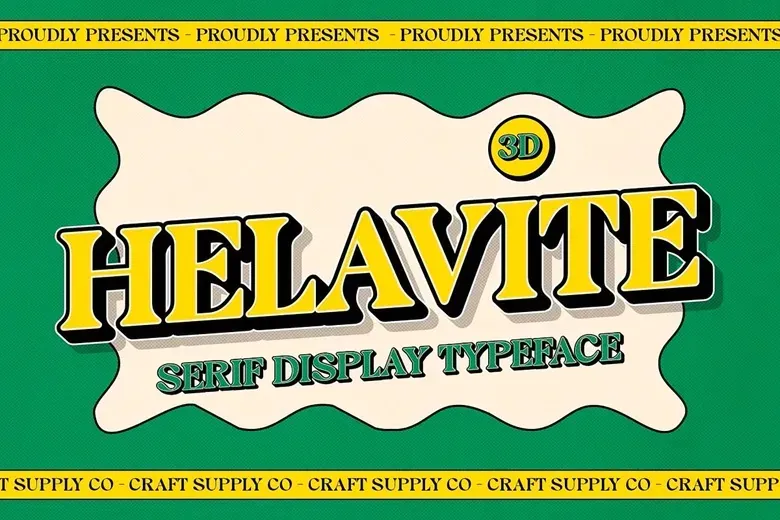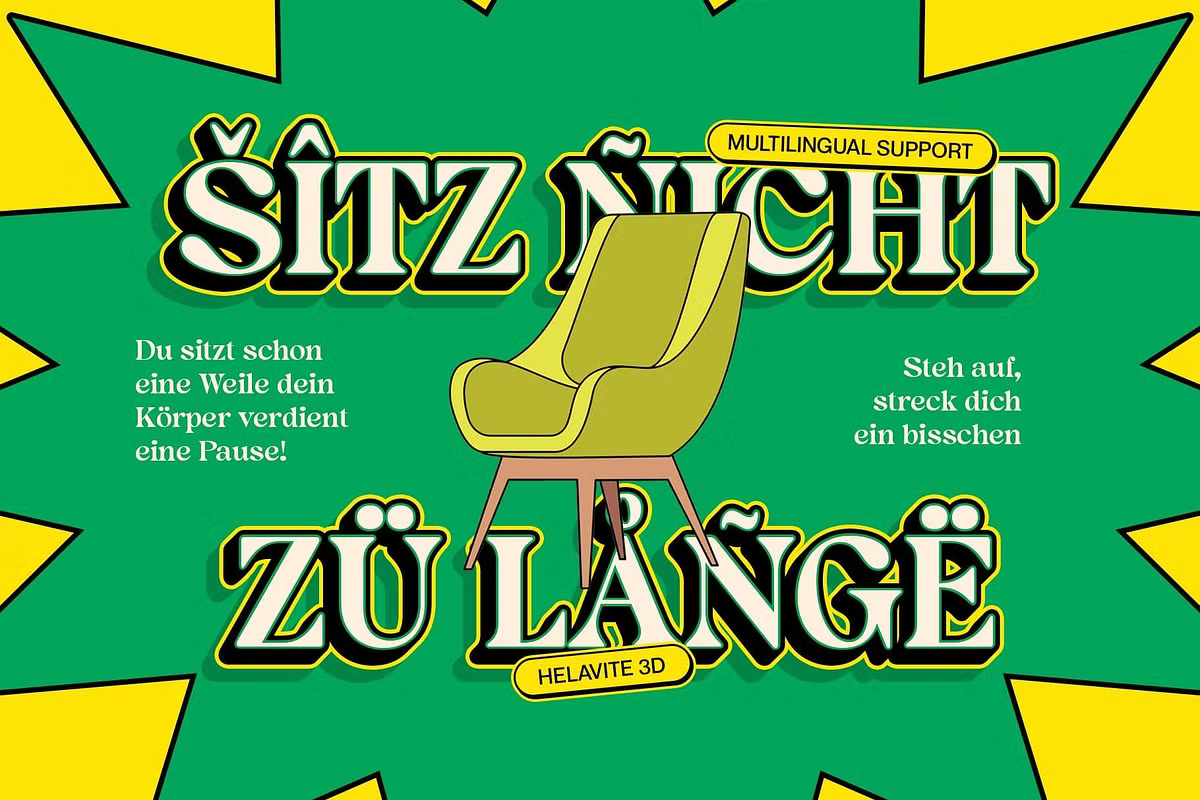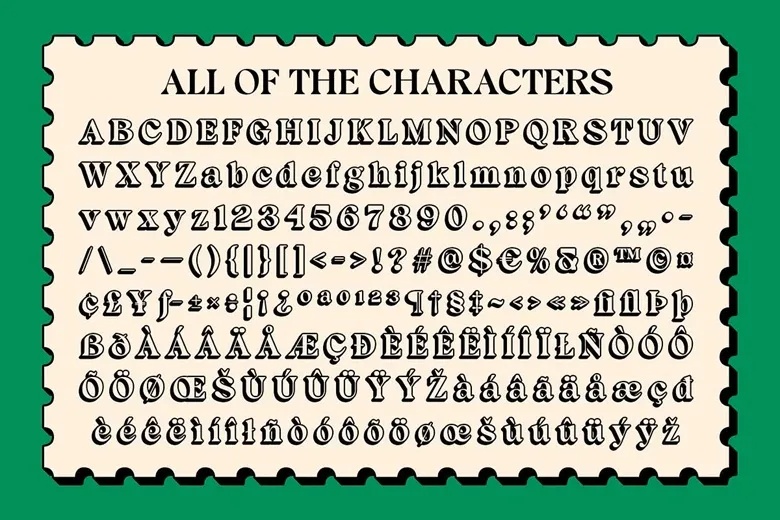
Helavite 3D Font
Helavite 3D is a modern serif font that blends minimalist structure with a subtle 3D effect, crafted to deliver a stylish and sophisticated aesthetic. With its crisp lines and refined forms, it communicates clarity and elegance, making it an excellent choice for upscale visual communication. Versatile and contemporary, Helavite 3D is well-suited for a wide range of design applications that demand a clean, refined look. Its high-end appeal and subtle dimensional effect make it perfect for luxury branding, premium editorial layouts, and sleek digital designs.
Helavite 3D Serif Font